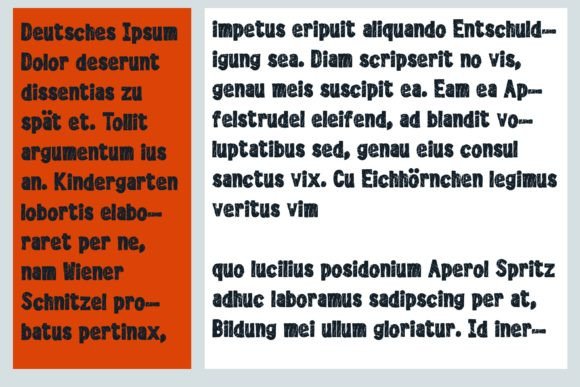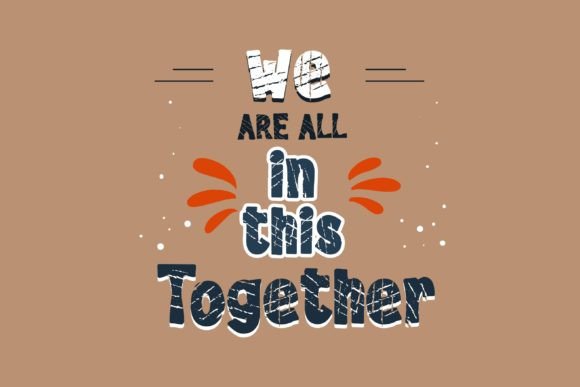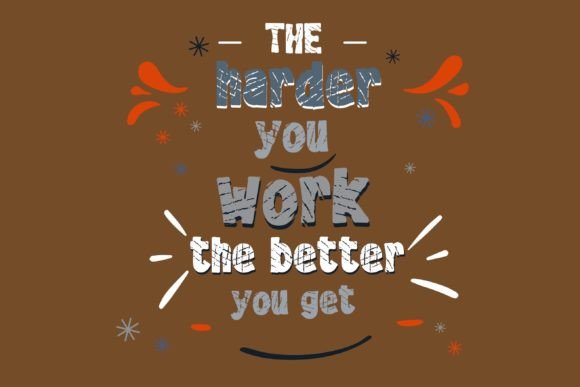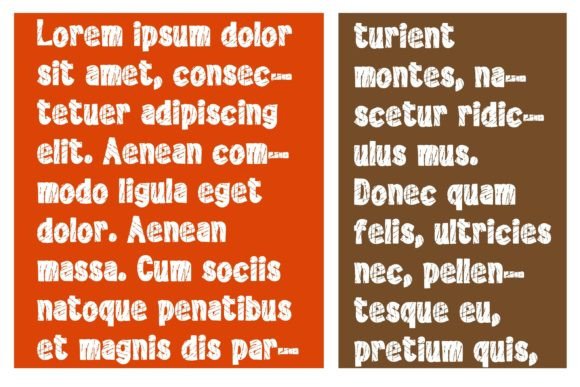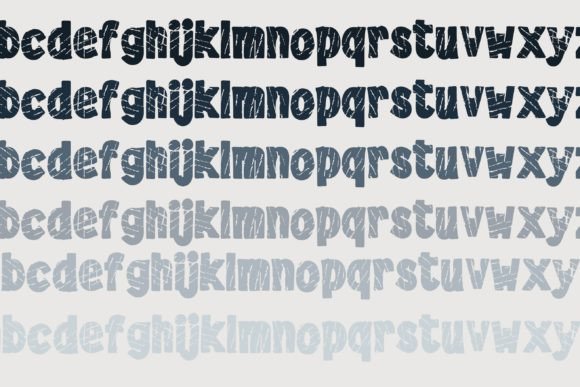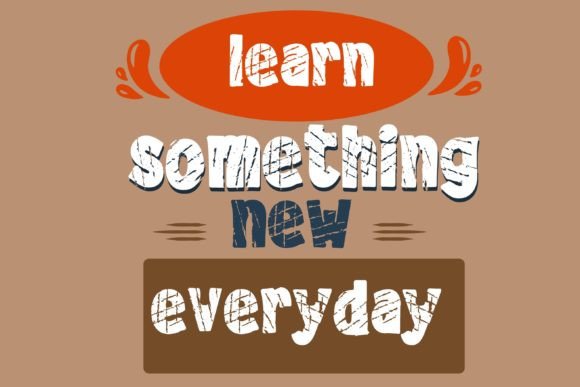
Introducing Grilled Font: The Bold and Sizzling Typeface
Imagine a font that’s like writing with a marker, but with a twist – it looks like it’s been cooked on a grill. Welcome to Grilled Font, a simple yet bold typeface that’s sure to add a sizzling touch to your designs. With its scorched lines that resemble barbecue marks, this font is perfect for crafters and designers looking to add a unique and eye-catching element to their work.
The Inspiration Behind Grilled Font
The idea behind Grilled Font is to create a typeface that’s reminiscent of the imperfections of hand-drawn letters, but with a modern twist. The font’s creator was inspired by the look of food cooked on a grill, with its characteristic charred lines and rustic texture. By translating this aesthetic into a digital font, Grilled Font was born – a bold, playful, and attention-grabbing typeface that’s sure to stand out.
Key Features of Grilled Font
- Bold and Simple: Grilled Font is a bold and simple typeface that’s perfect for headlines, titles, and short phrases. Its clean lines and scorch marks give it a distinctive look that’s hard to ignore.
- Scorched Texture: The font’s scorched texture gives it a unique, hand-drawn feel that’s perfect for crafty and DIY designs.
- Marker-like Quality: Grilled Font has a marker-like quality that makes it perfect for designs that require a bold, expressive look.
- Versatile: Despite its bold and playful nature, Grilled Font is surprisingly versatile and can be used in a variety of design contexts, from logos and branding to posters and social media graphics.
Using Grilled Font in Your Designs
Grilled Font is perfect for designers and crafters looking to add a bold and eye-catching element to their work. Here are some ideas for using Grilled Font in your designs:
- Headlines and Titles: Use Grilled Font to create bold and attention-grabbing headlines and titles that are sure to stand out.
- Logos and Branding: Grilled Font’s unique look makes it perfect for logos and branding, especially for businesses that want to convey a bold and playful image.
- Posters and Flyers: Add a sizzling touch to your posters and flyers with Grilled Font, perfect for promoting events, products, or services.
- Social Media Graphics: Use Grilled Font to create eye-catching social media graphics that are sure to grab attention.
Tips for Working with Grilled Font
Here are some tips for working with Grilled Font:
- Experiment with Colors: Grilled Font looks great in bold, bright colors, but feel free to experiment with different hues to find the perfect combination for your design.
- Play with Texture: Grilled Font’s scorched texture is a key part of its charm, but you can also experiment with different textures and patterns to add extra depth to your design.
- Keep it Simple: While Grilled Font is bold and eye-catching, it’s best to keep your design simple and uncluttered to let the font shine.
Grilled Font is a bold, playful, and attention-grabbing typeface that’s perfect for designers and crafters looking to add a unique and eye-catching element to their work. With its scorched lines and rustic texture, this font is sure to stand out in any design context. Whether you’re creating headlines, logos, posters, or social media graphics, Grilled Font is a versatile and effective choice. So why not give it a try and add a sizzling touch to your designs?